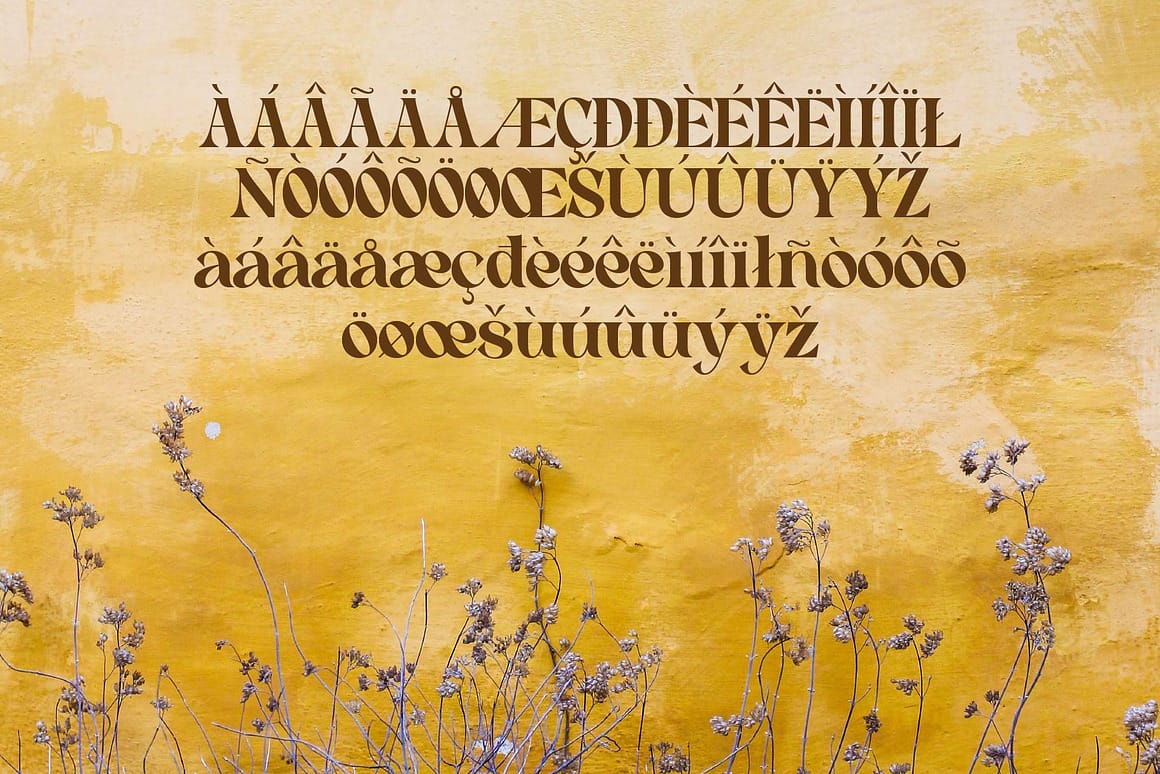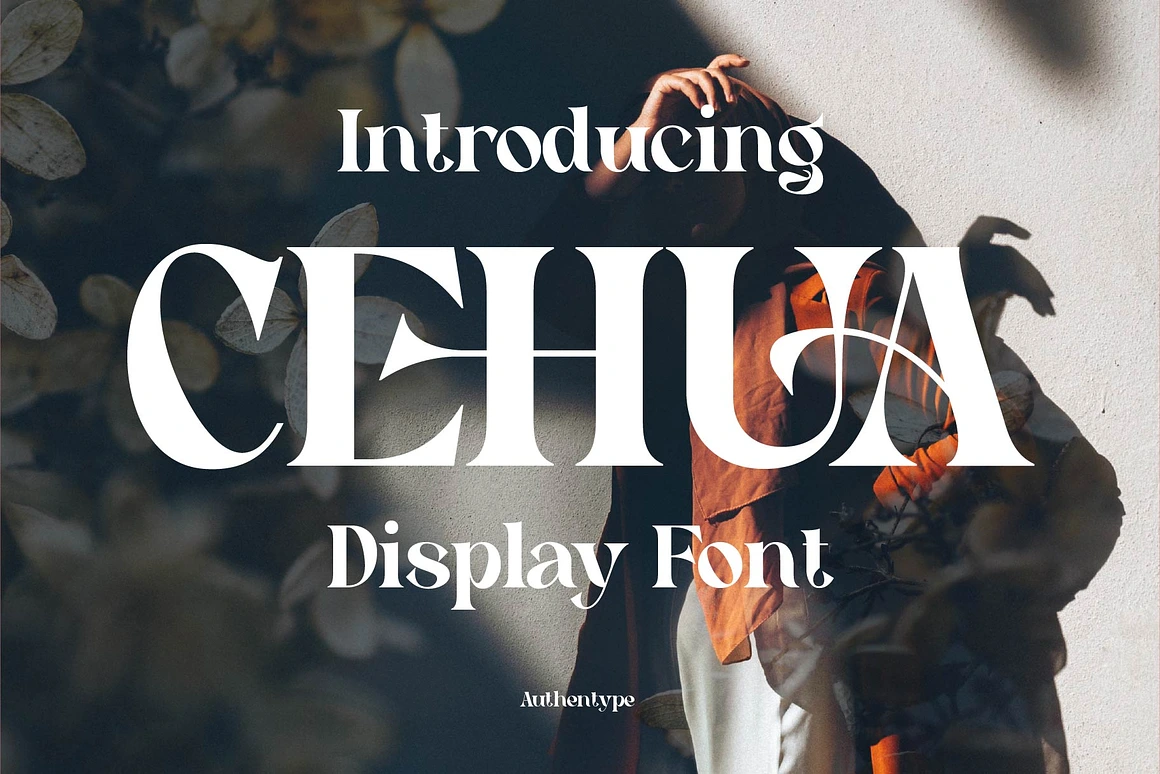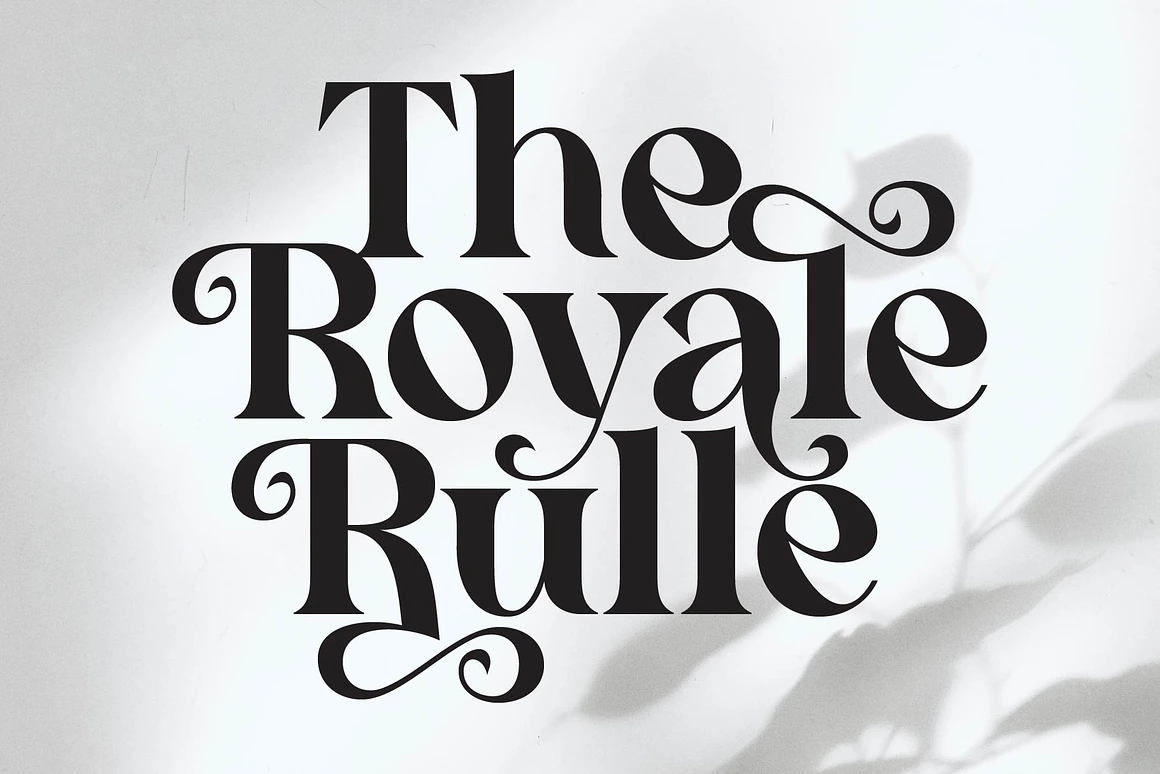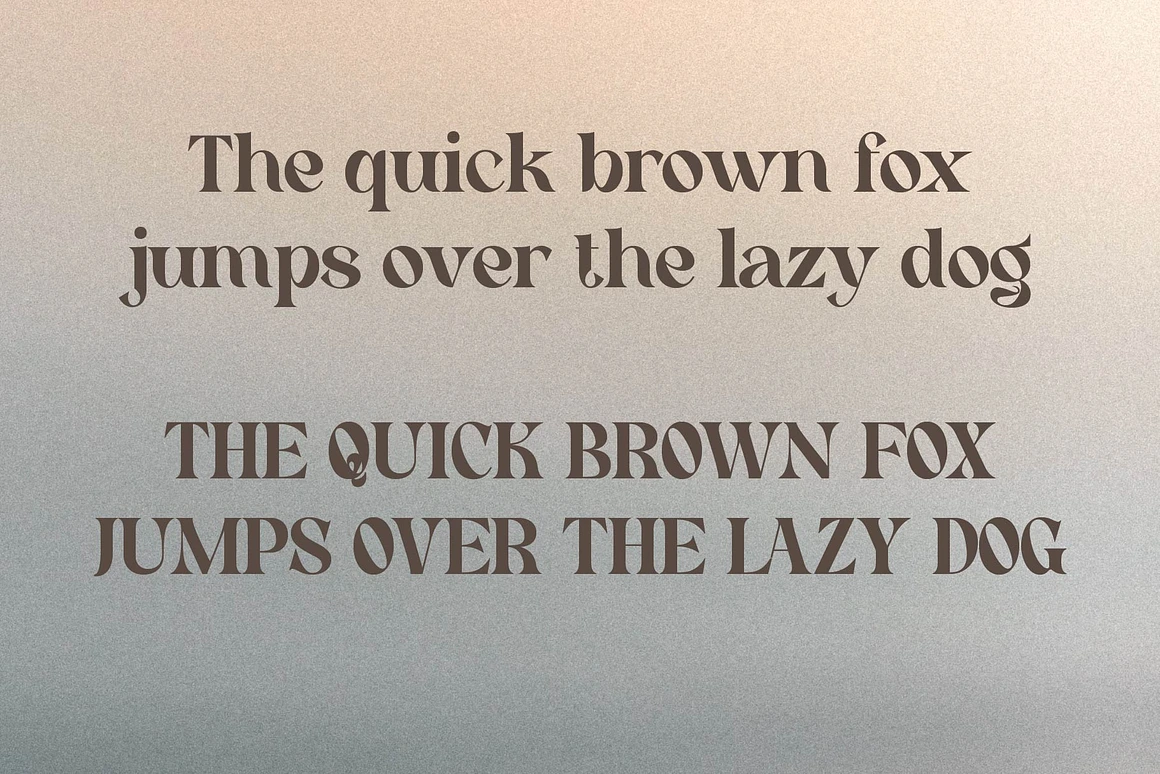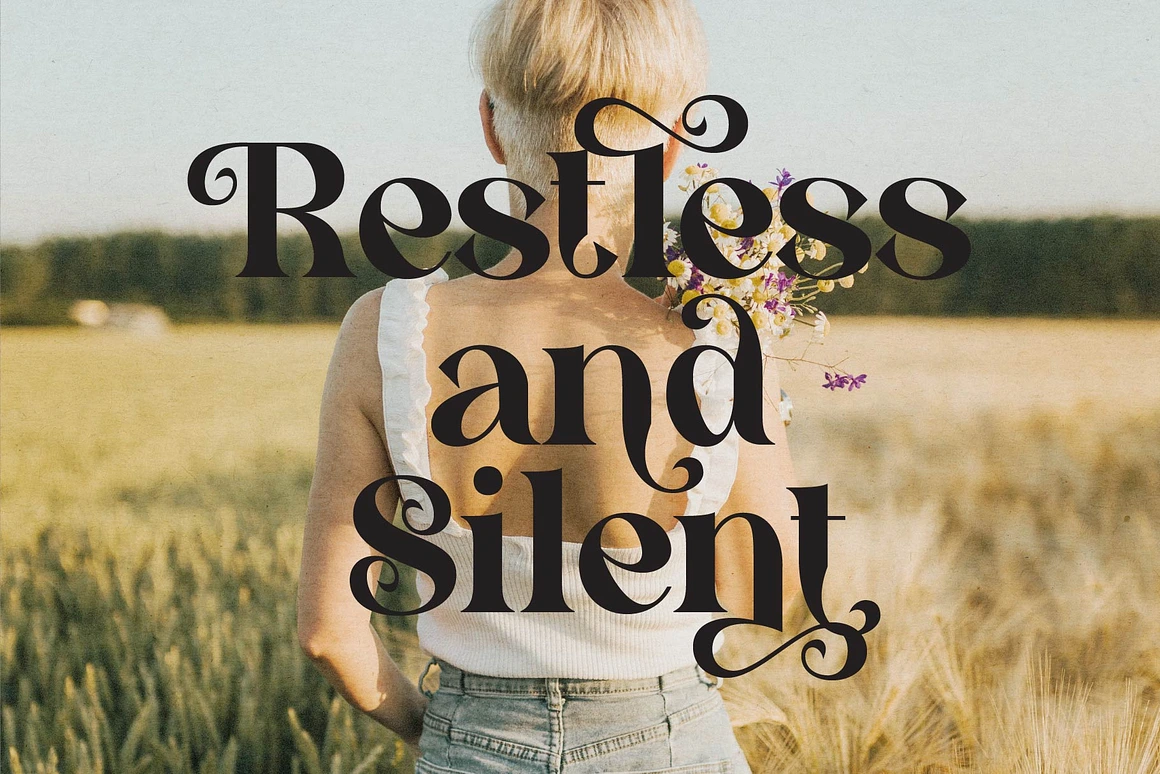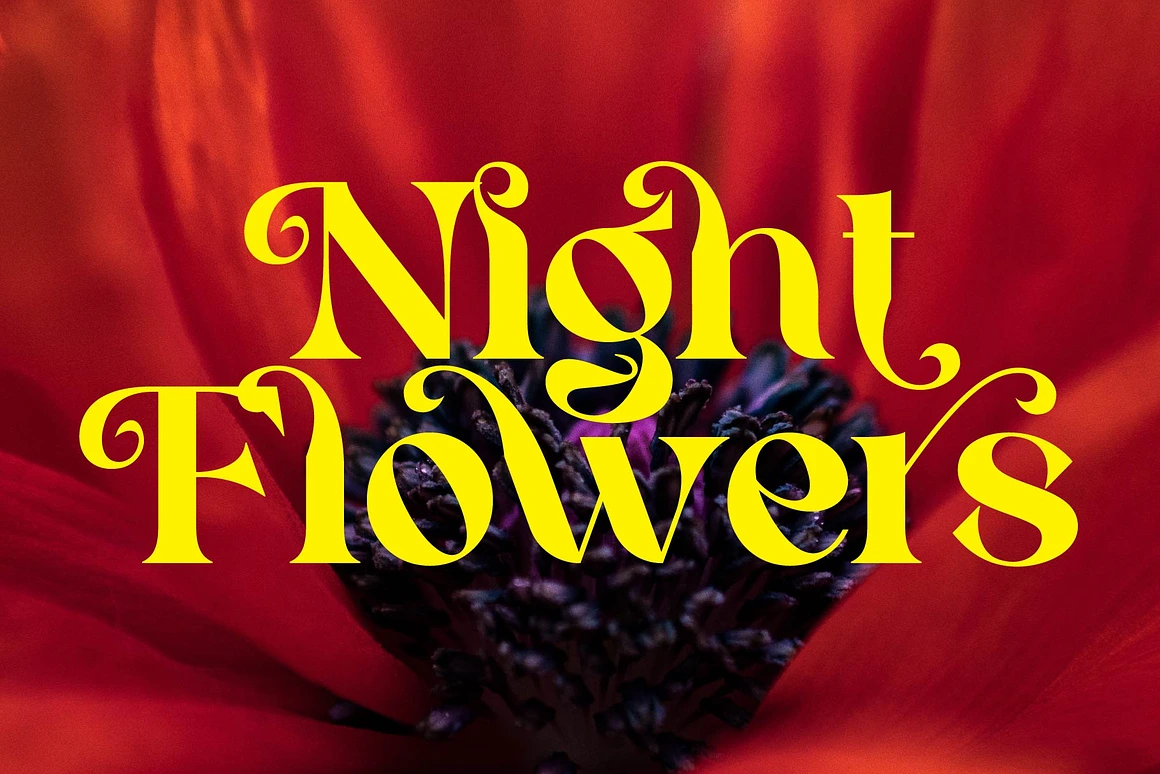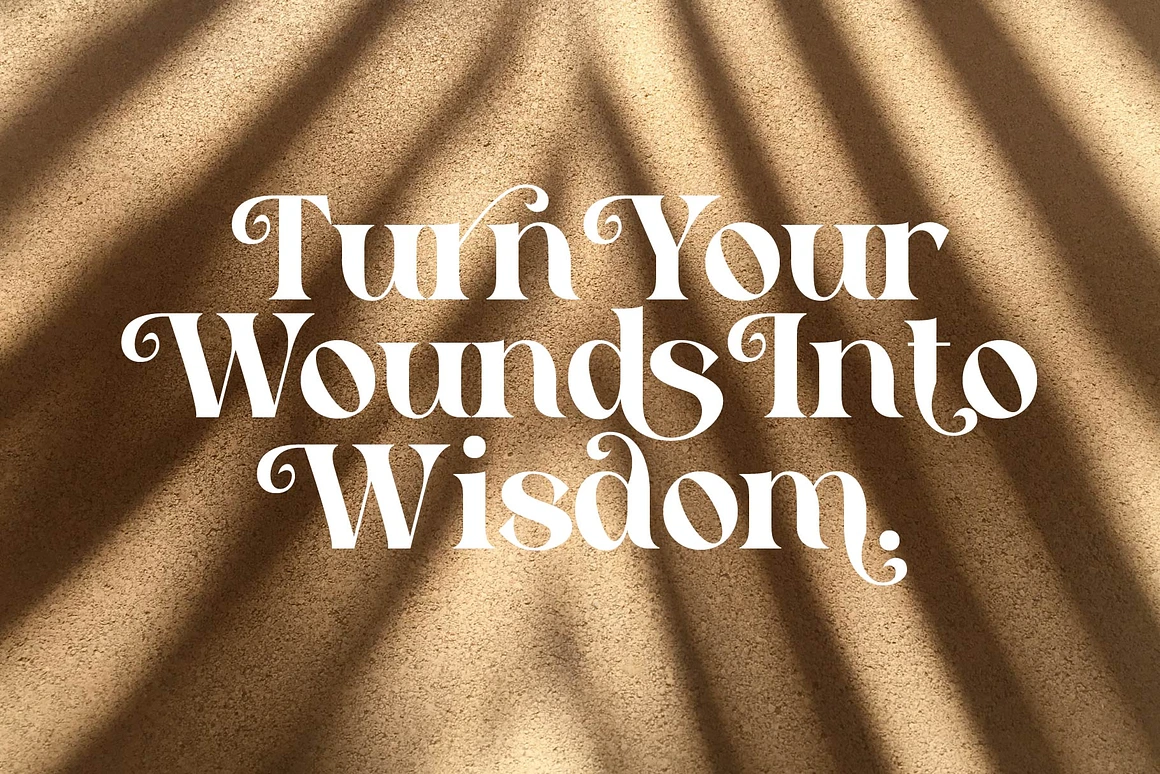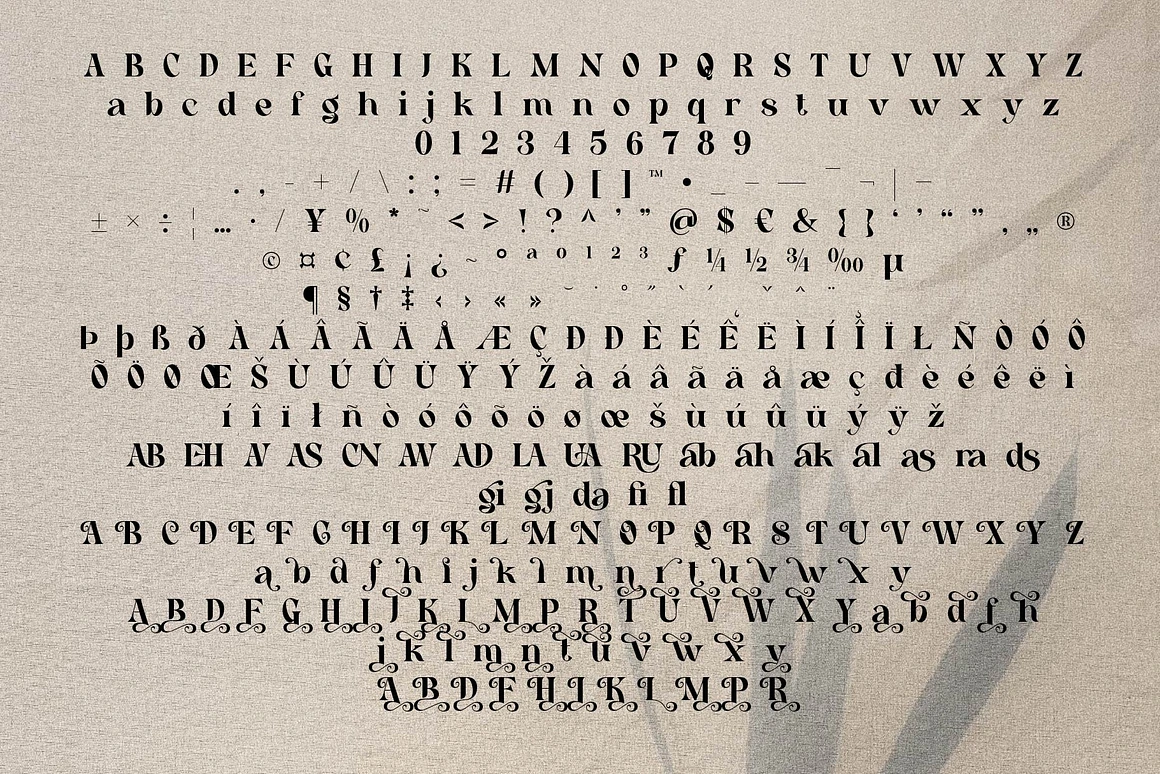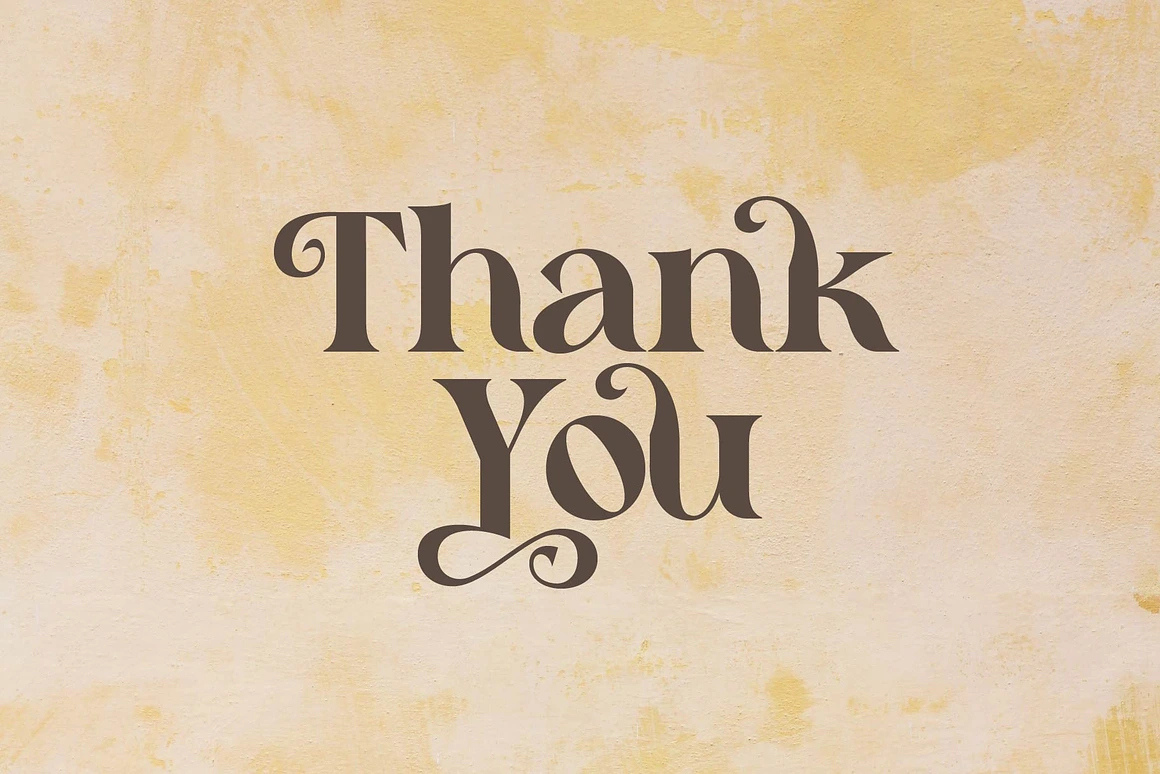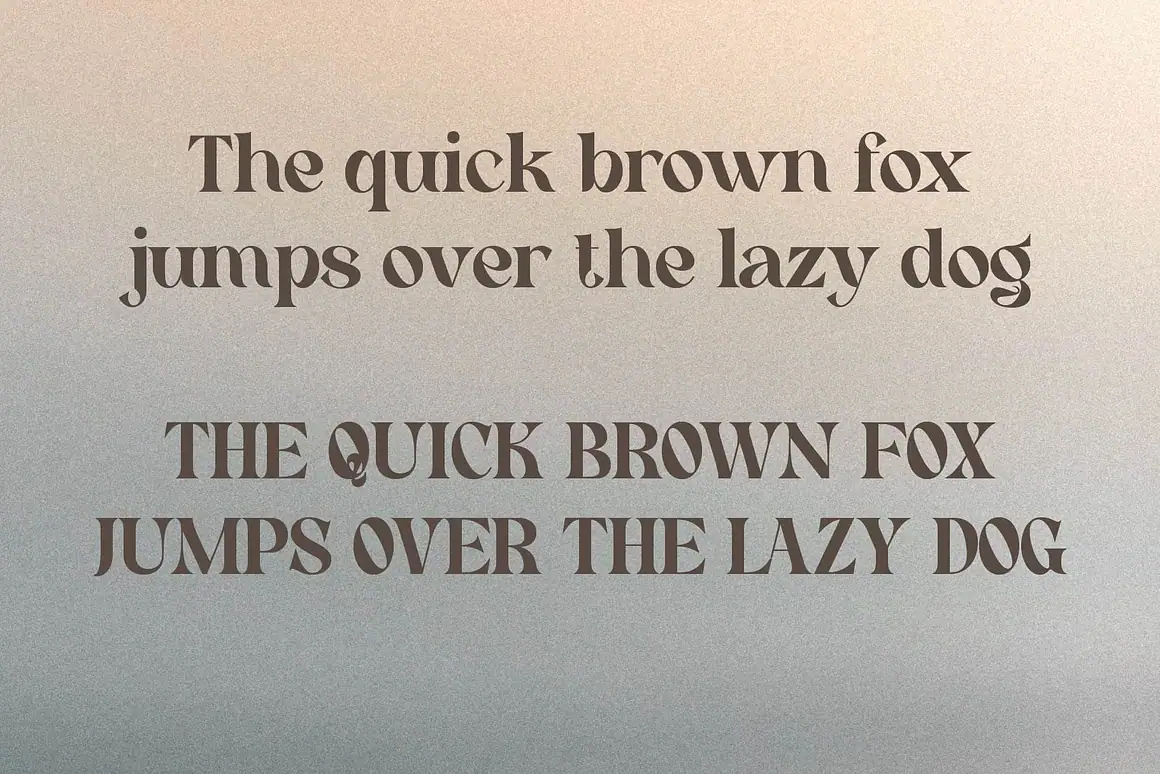
Cehua – Elegant Serif Font
Cehua
Cehua elegant serif font is a beautiful high contrast font. Cehua elegant serif font work well for beauty product branding because Cehua contain a variety of letters and ligatures that add a feminine feel to your designs.
Feature:
* Standard glyphs uppercase and lowercase letters
* Numerals, a large range of punctuation and ligatures.
* Swashes, Stylistic Set
* Multilingual support for; ä ö ü Ä Ö Ü ß ¿¡